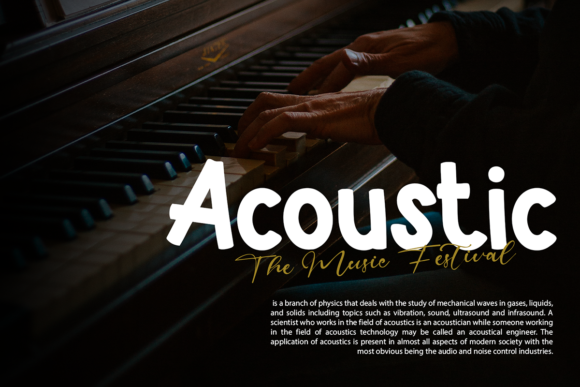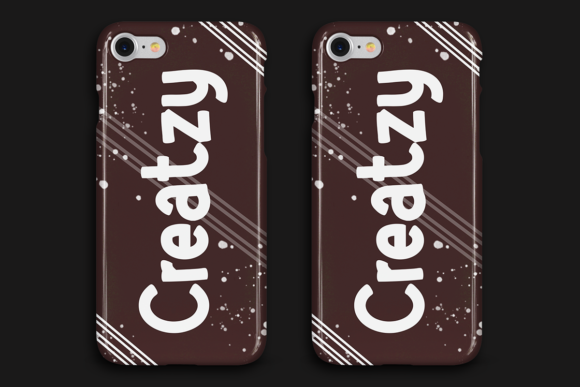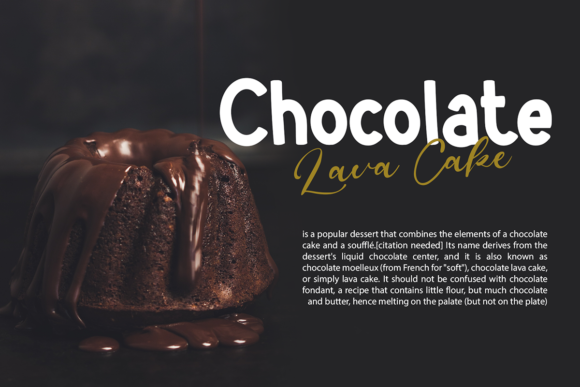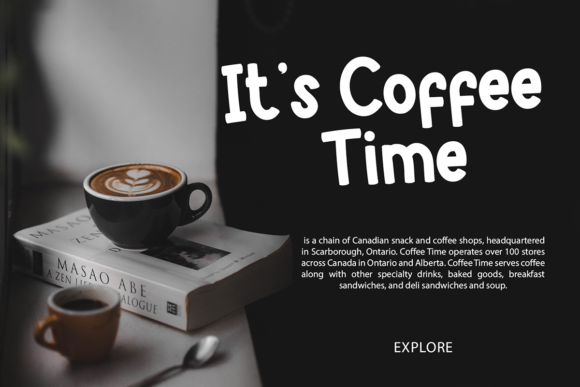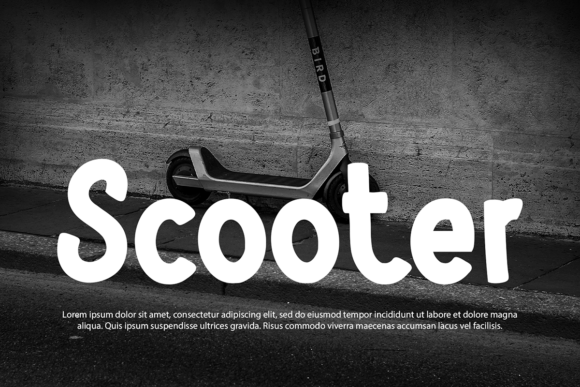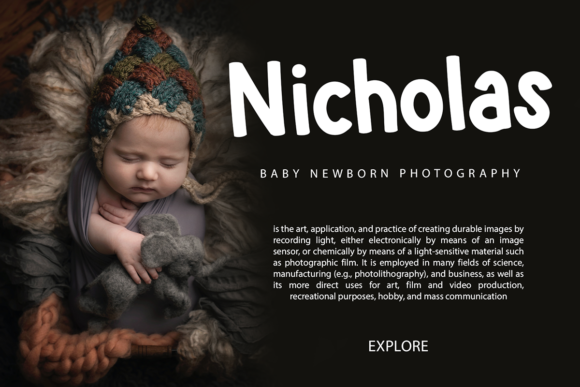
The Celestiall Font: A Modern Display Font to Elevate Your Designs
I’ll never forget the moment I stumbled upon the perfect font for a client’s branding project. It was like a breath of fresh air, a game-changer that transformed the entire aesthetic. That’s exactly what the Celestiall font did for me. As a designer, I’m always on the lookout for versatile and stylish typefaces that can elevate my work. In this article, I’ll dive into the world of Celestiall, exploring its features, uses, and everything in between.
A Personal Review: What I Love About Celestiall
So, what makes Celestiall so special? Here are a few things that caught my attention:
- ✨ Multilingual features: Celestiall supports multiple languages, making it an excellent choice for global brands or projects with diverse audiences.
- ✅ Style variations: This font comes with a range of stylistic alternates, allowing you to experiment with different looks and feels.
- 💫 Modern display font: Celestiall’s sleek, contemporary design makes it perfect for brand logos, invitations, greeting cards, and more.
While Celestiall is an excellent font, there are a few minor quirks to be aware of:
- 🤔 Limited use in body text: Due to its display nature, Celestiall might not be the best choice for lengthy body text. It’s ideal for headlines, titles, and short paragraphs.
- ⚠️ Glyph compatibility: Some glyphs or special characters might not work seamlessly across all platforms or software. Be sure to test the font in your preferred design tool.
The Designer Inspiration Behind Celestiall
While the true story behind Celestiall’s creation remains a mystery, it’s easy to imagine a designer inspired by the night sky and celestial bodies. Perhaps they aimed to capture the essence of stargazing on a clear, moonless night – the feeling of vastness and endless possibility. Whatever the inspiration, Celestiall is undoubtedly a font that will elevate your designs to new heights.
| Author | DisplayStudio_ |
| What is Celestiall font best used for? | Celestiall is perfect for brand logos, invitations, greeting cards, and any project requiring a modern, eye-catching display font. |
| Does Celestiall support non-English languages? | Yes, Celestiall features multilingual support, making it suitable for projects with diverse language requirements. |